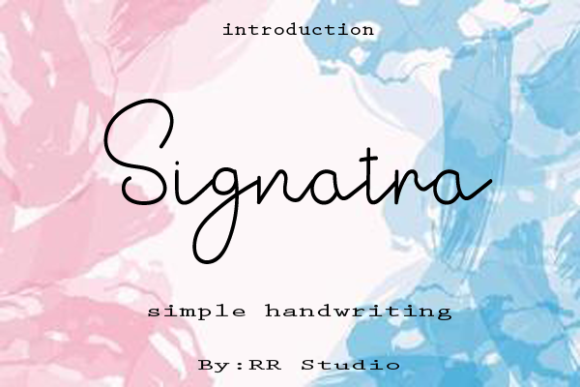
Signatra Font
About Signatra Font
Signatra is a thin lettered and delicate handwritten font. This versatile script font has a wide spectrum of applications ranging from greeting cards to headlines and is guaranteed to add a romantic feel to your next project.